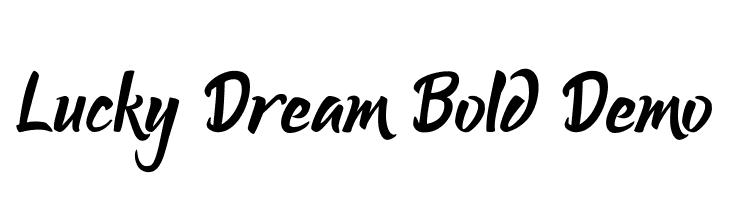
A geometric and modern font with angular lines and sharp edges.
A cryptic, geometric font with a mysterious, cipher-like appearance.
A flowing, cursive script font with elegant, connected strokes.
A bold, brush-style font with dynamic, hand-drawn strokes.
A playful, bold font with thick, rounded letters and a comic-like style.
A bold, playful font with rounded, cartoonish letterforms.
A playful, bold font with rounded, thick strokes and a whimsical touch.
A playful, bold font with rounded edges and a friendly style.
A modern and decorative font with elegant curves and artistic flourishes.